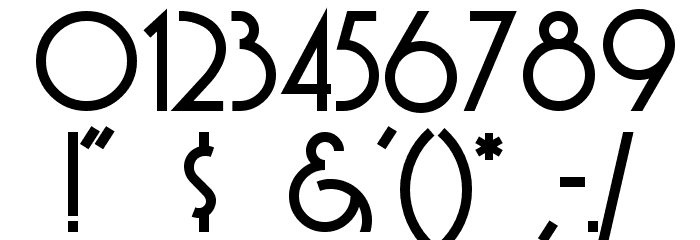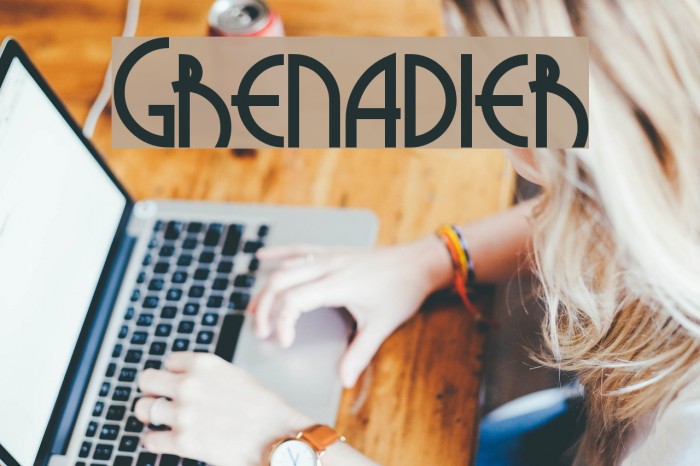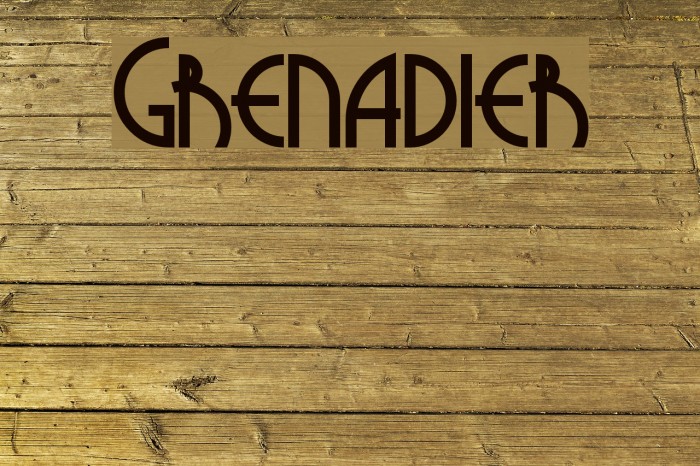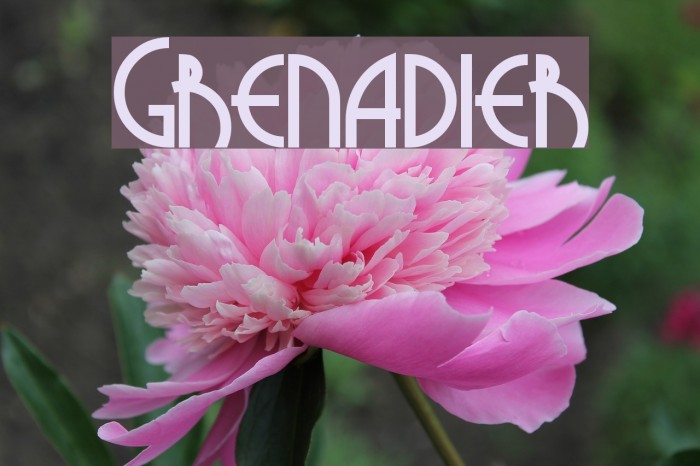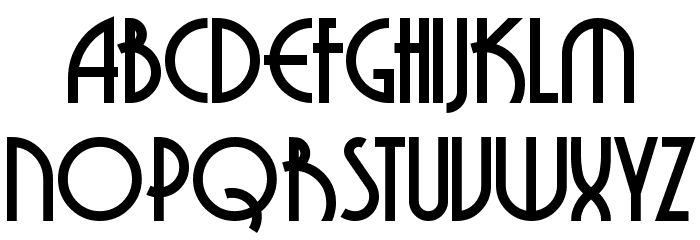
Grenadier Font
Grenadier Description
This font features a unique and bold geometric style with a strong Art Deco influence. The uppercase letters are characterized by their tall, narrow forms and sharp angles, creating a sense of elegance and sophistication. The lowercase letters maintain a similar geometric structure, providing a cohesive look across different text sizes. The numerals are distinct and easily readable, with a consistent stroke width that complements the overall design. Special characters are designed with the same attention to detail, ensuring they fit seamlessly with the rest of the typeface. This font's clean lines and modern aesthetic make it versatile for various design applications.
| Proposed Projects | Ideal for branding, posters, and editorial design where a modern and sophisticated look is desired. |